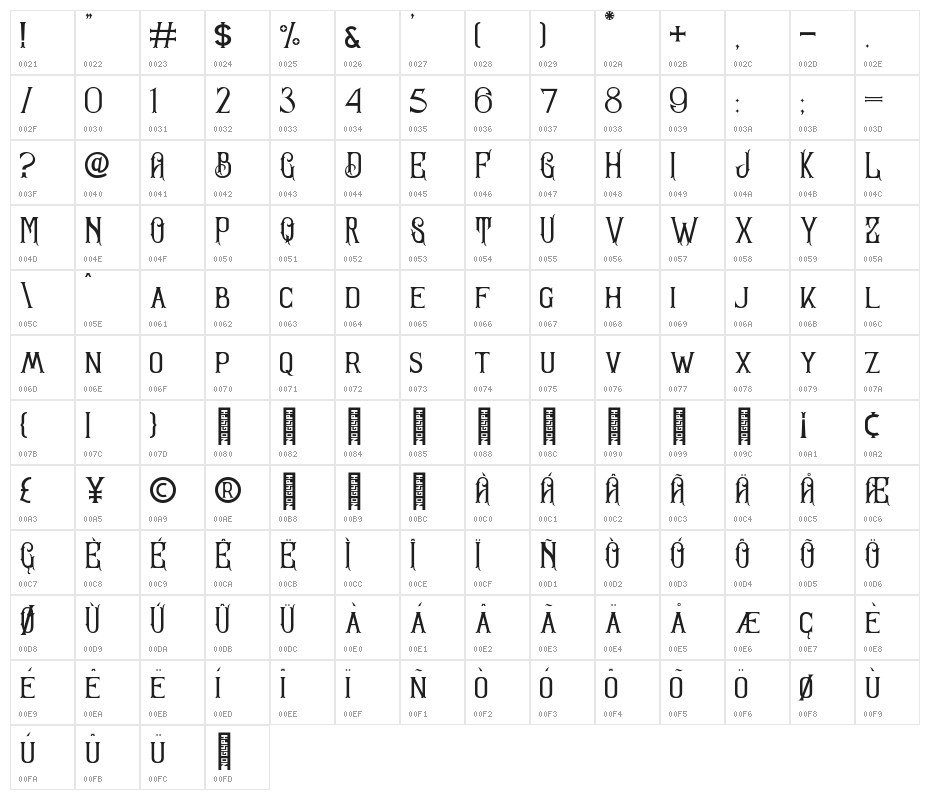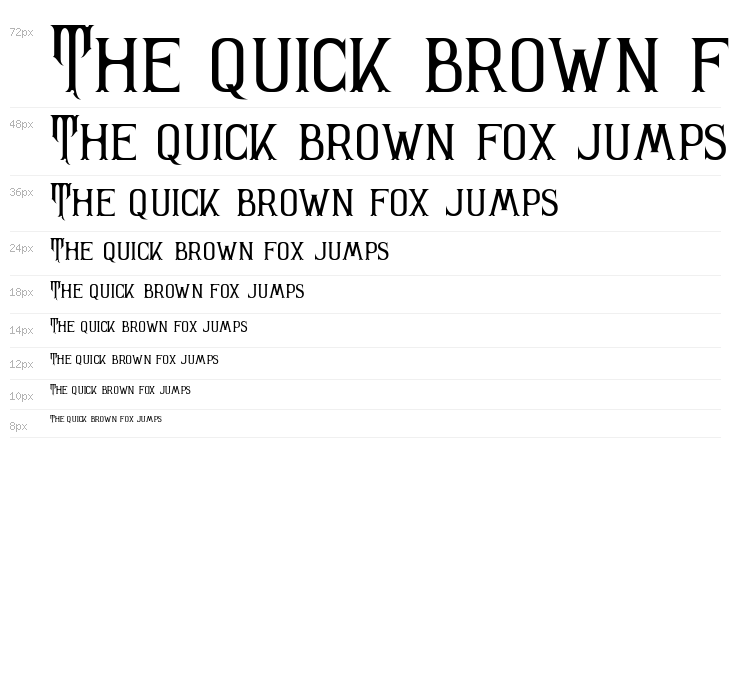
Sandorian Normal Font
Sandorian Normal Description
This font features a unique blend of decorative and modern elements, characterized by its sharp, angular serifs and intricate detailing. The uppercase letters exhibit a bold presence with distinct, pointed edges and occasional flourishes that add a touch of elegance. The lowercase letters maintain a consistent style, with a slightly condensed form that complements the uppercase set. Numbers are crafted with the same attention to detail, ensuring readability while maintaining the font's decorative nature. Special characters are designed to match the overall aesthetic, making this font suitable for a variety of creative applications.
| Width | Condensed |
| Use Case | Headlines, Logos, Invitations |
| Proposed Projects | Ideal for branding, logo design, headlines, and invitations where a distinctive and artistic touch is desired. |